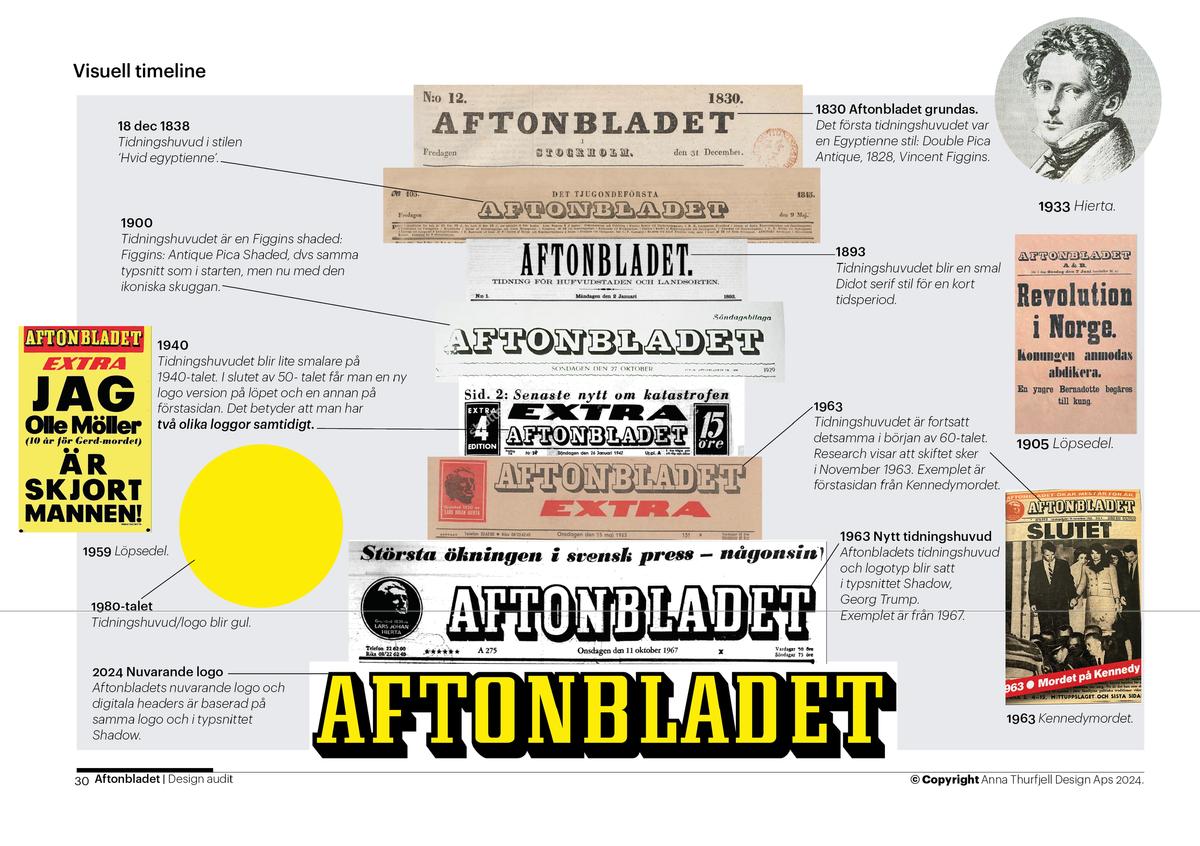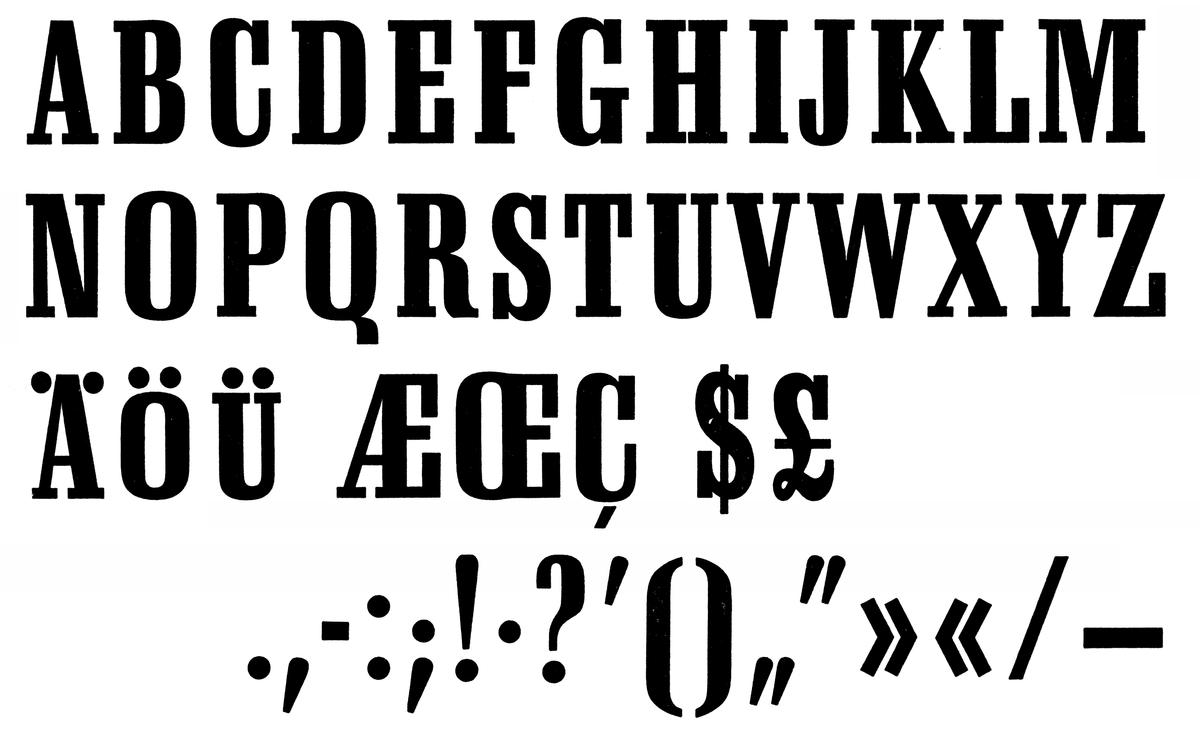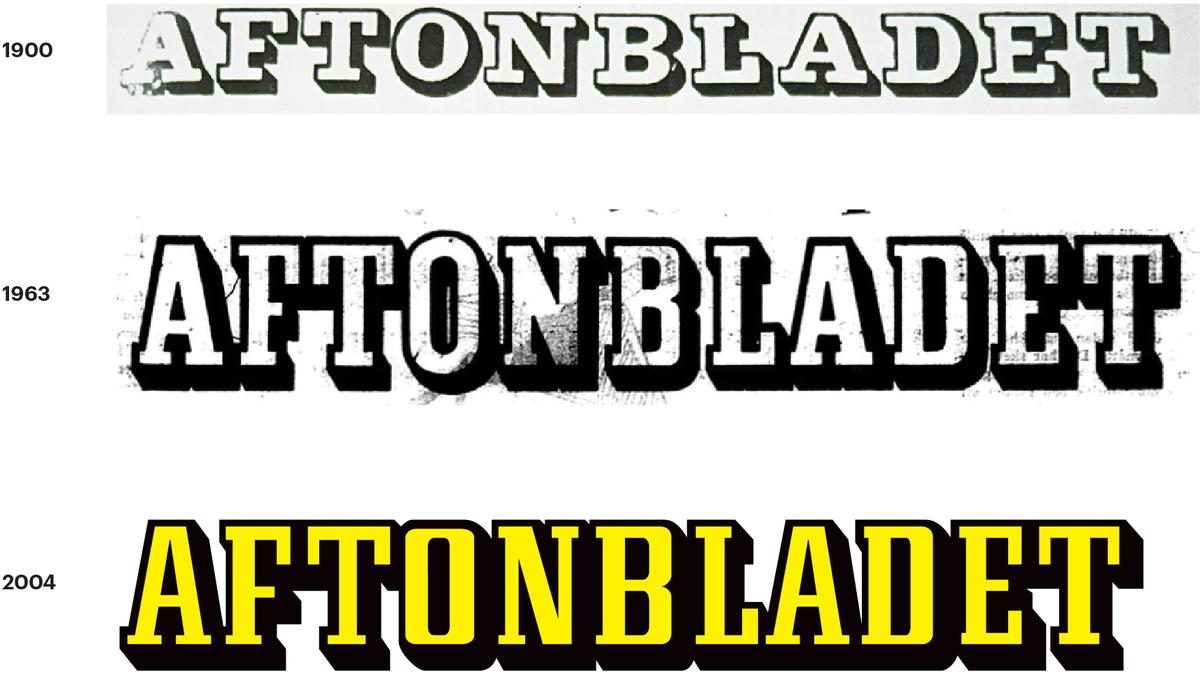
Icon for Sportbladet.
The full nameplate for Sportbladet, with a stacked option for tighter spaces.
Like all media companies, Aftonbladet has a family of brands that all need to harmonize. Sportbladet is the most important of these sibling brands; after developing this, we expanded the nameplate to a complete alphabet in both solid and shaded variants so the team can create new logotypes as needed. Thurfjell developed a detailed brand book that explains everything from guidelines for building new logotypes on the fly to recommendations for the optical sizes and icons.